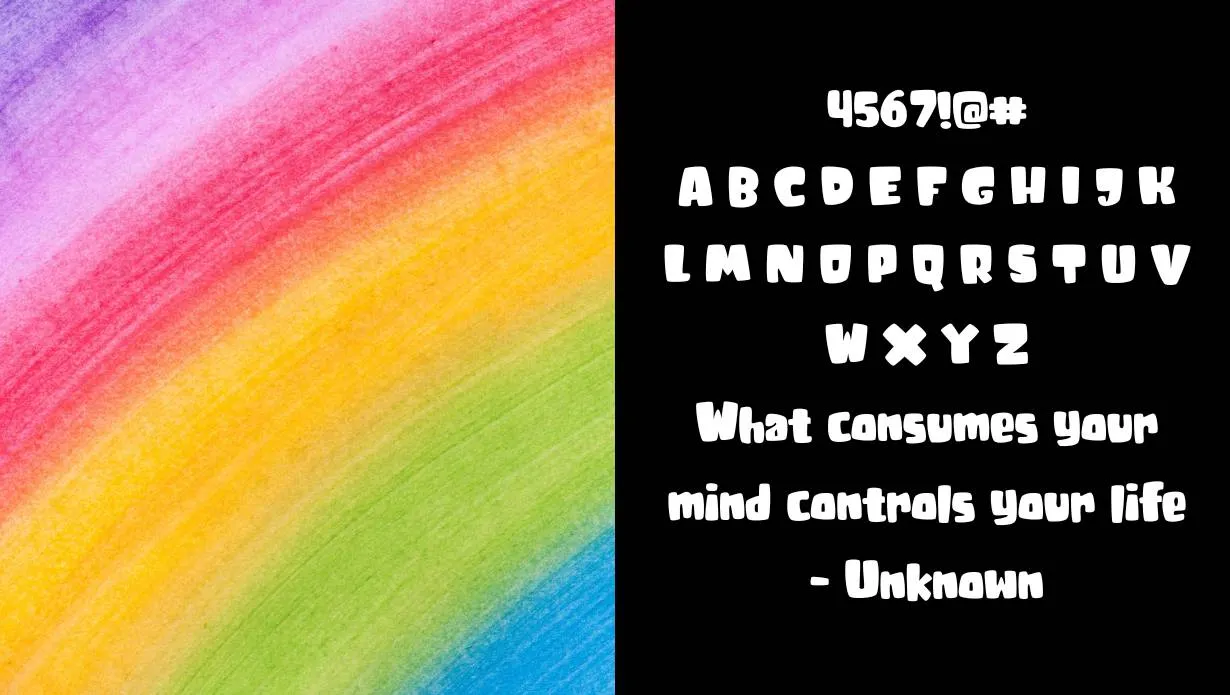
Tricky Jimmy Font is a fancy typeface designed by Tokokoo Studio in 1999. The font has a contemporary look and feels, with bold and bouncy characters.
This Font includes upper and lower case letters, numbers, and punctuation marks.
| Name | Tricky Jimmy Font |
| Designer | Tokokoo Studio |
The glyphs of this Font are fancy and elegant, making it a popular choice for logos and tattoo designs. However, The font also has only one drawback, Some of the letters can be difficult to read when they are used in small sizes.